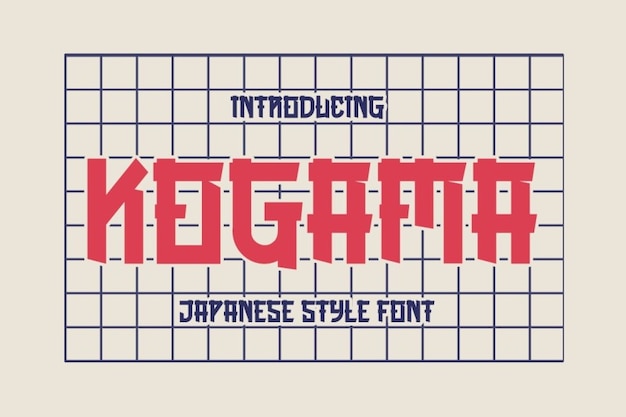
Bring some personality to your projects with Kogama! This Asian font concept will make your creations beautiful and appealing. Design logos, banners, brochures, and quotations for personal and professional use, Download it now and start creating!
Kogama (400)